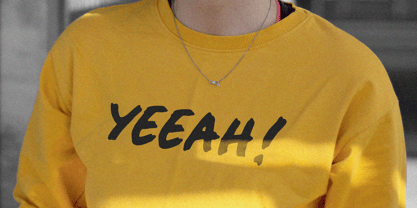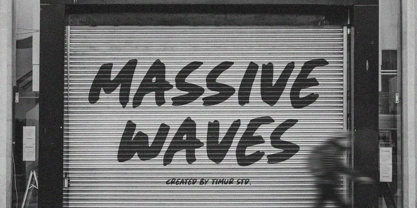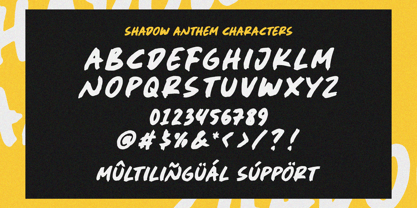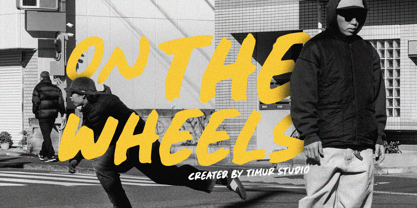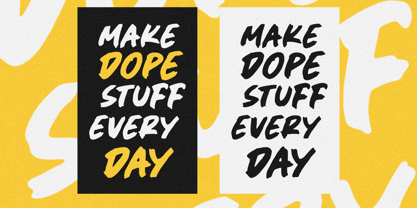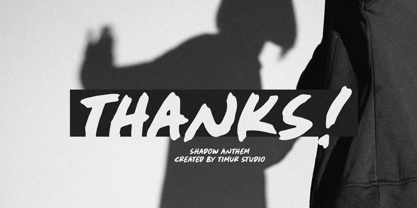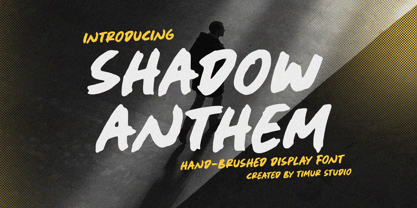
Shadow Anthem
La familia tipográfica Shadow Anthem fue diseñada por Wara Sigit Tri Pamungkas y publicada por Timurtype. Shadow Anthem contiene 1 estilos. Más información sobre esta familia
Shadow Anthem is a Handbrushed Display Font
Shadow Anthem is a bold handbrushed display font with a raw, edgy character. Featuring sharp strokes and an aggressive, handcrafted look, it brings a rebellious energy perfect for music posters, streetwear branding, and bold headlines. Its wild, textured style commands attention and adds attitude to any design.
Shadow Anthem Font also supports multilingualism